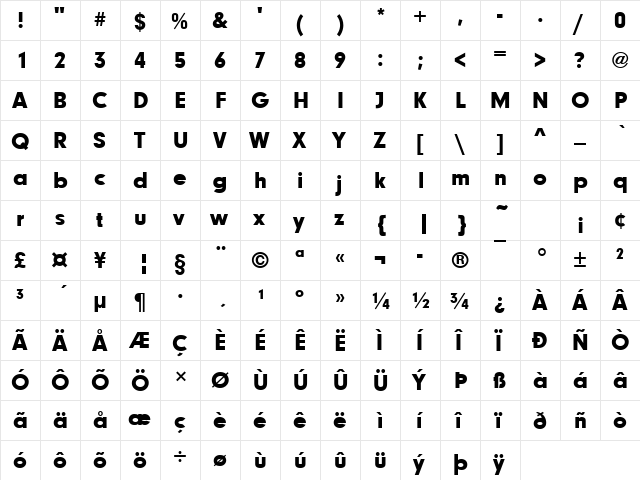
NeuzeitGroTBla Regular
Design Context for NeuzeitGroTBla Typeface
NeuzeitGroTBla is a composed and adaptable typeface that performs quietly and consistently across a wide range of design contexts.
Pro Tip: Use NeuzeitGroTBla in both headline and body roles to test its range before committing to a single application.